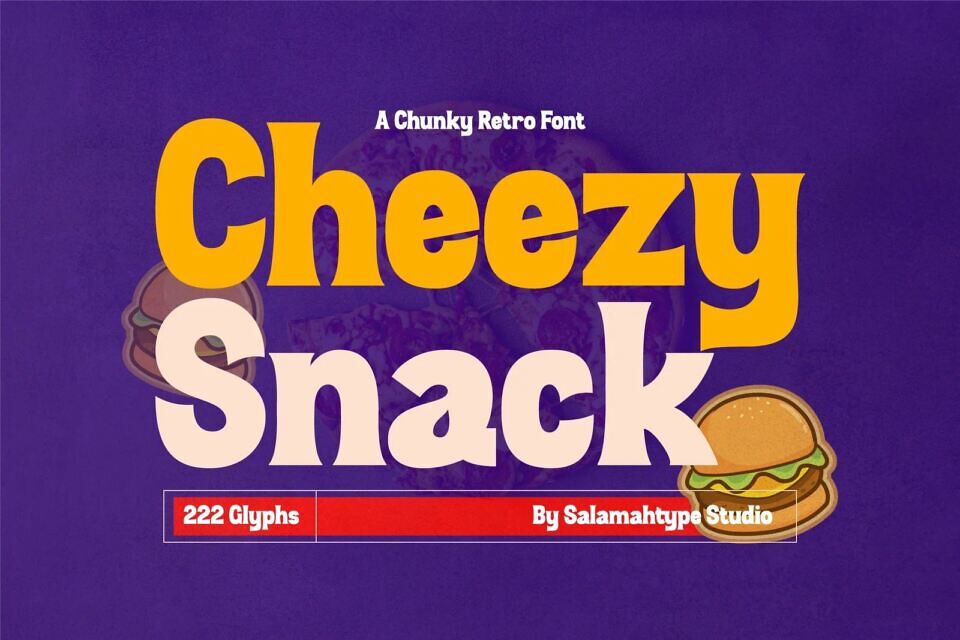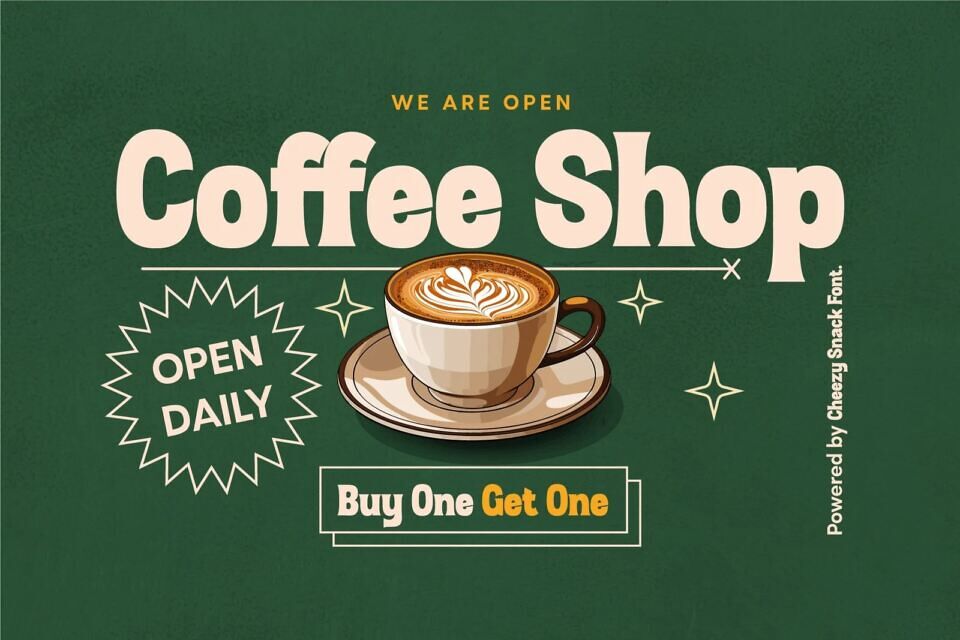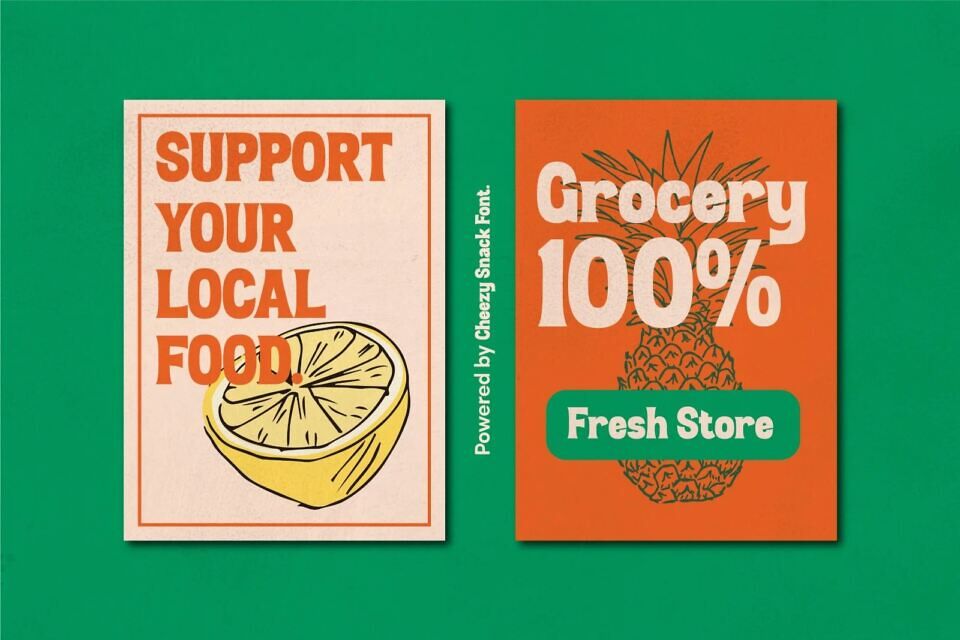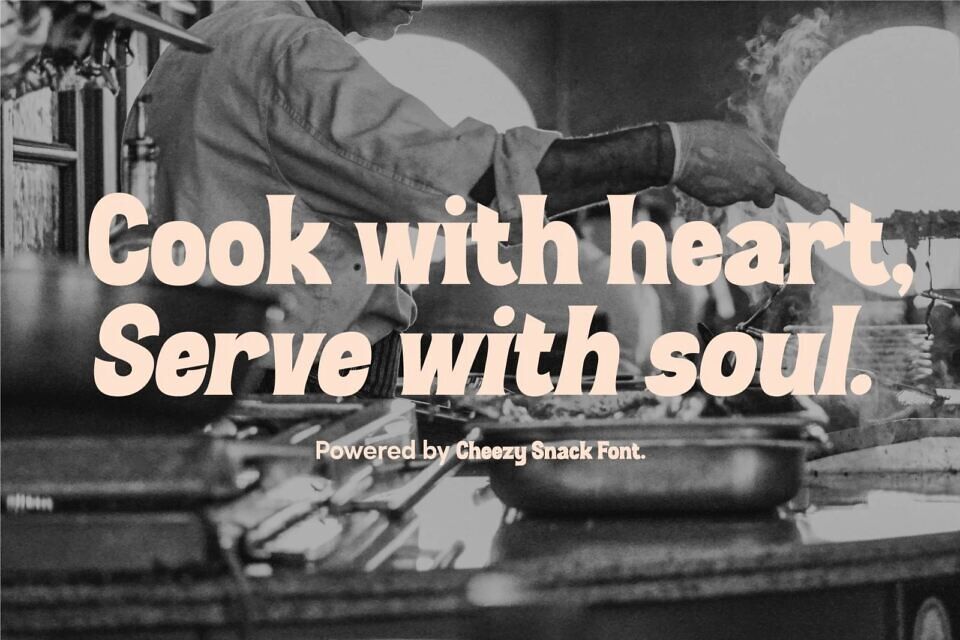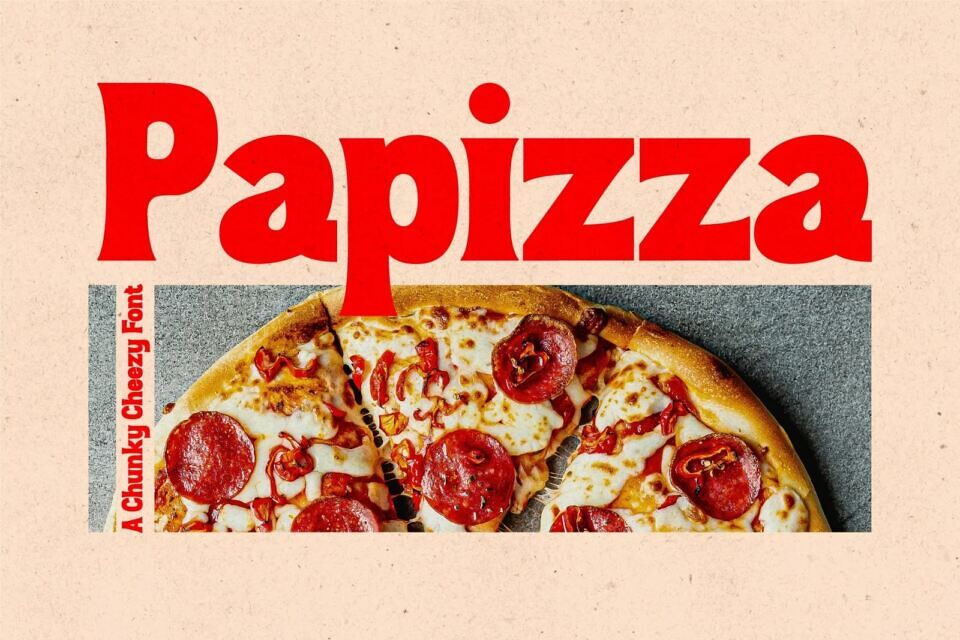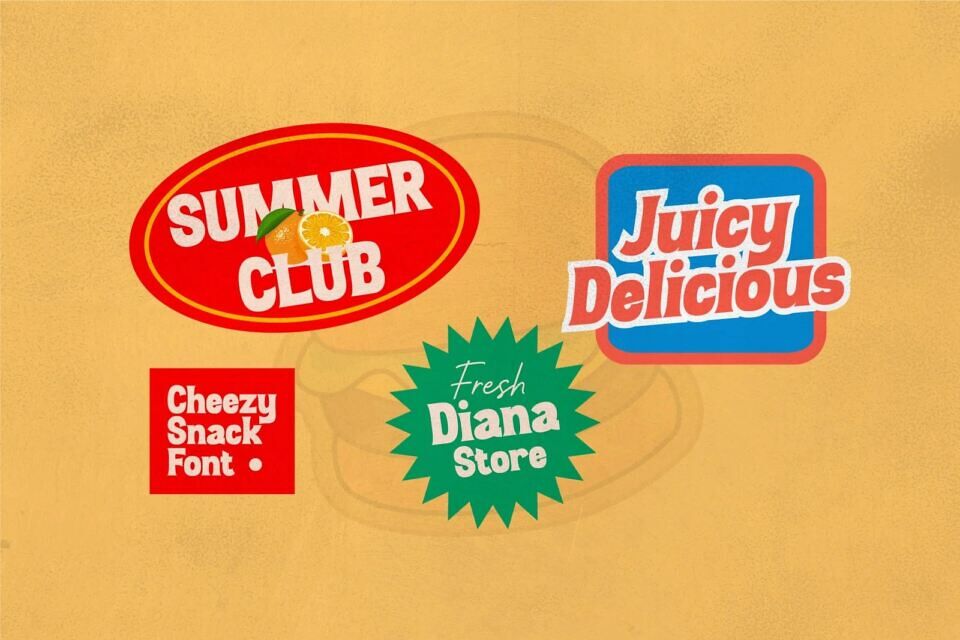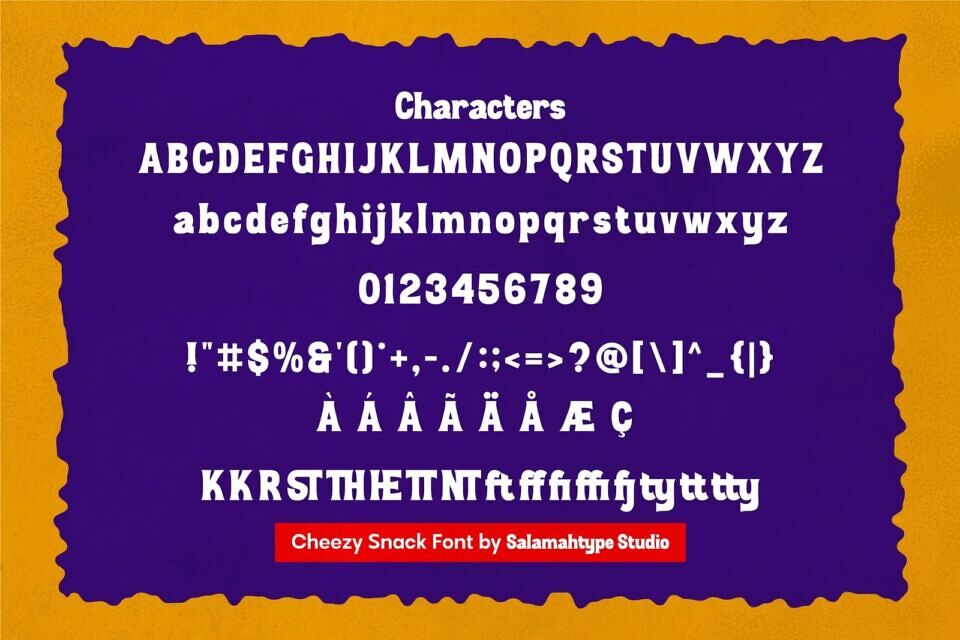
Cheezy Snack Font
Cheezy Snack is a bold and playful retro style font that brings delicious fun to your design plate. With thick, chunky letterforms and nostalgic vibes, this font is perfect for branding projects related to food, snacks, pop culture, and anything that needs a dose of funky charm.
It comes with a regular and oblique version, making it flexible for dynamic typographic compositions. Whether you’re designing a vintage style logo, retro poster, fun packaging, or quirky social media graphics, Cheezy Snack delivers flavor with every glyph.